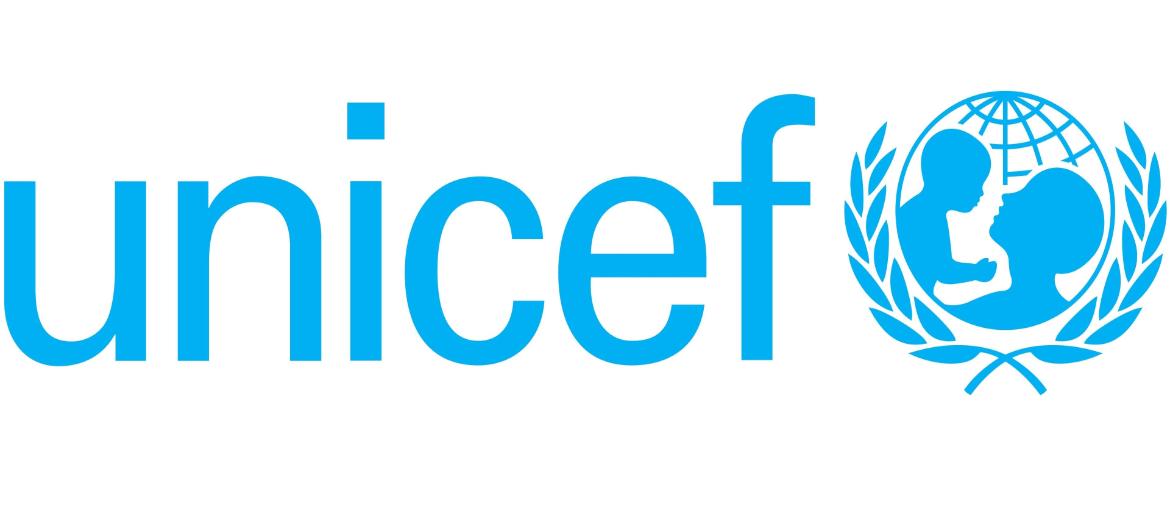
Unicef Font
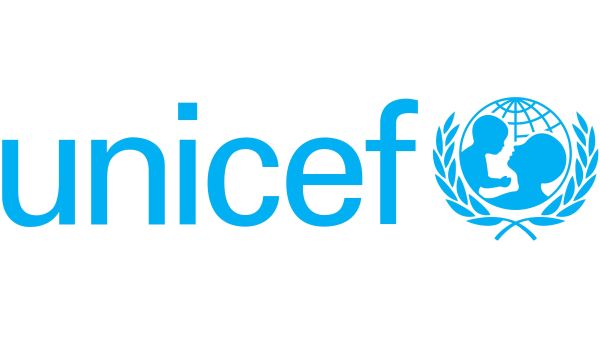
What Font Does Unicef Use?
The UNICEF Font is Univers Pro 45 Light, the typeface used in UNICEF’s logo and visual identity. Designed by Adrian Frutiger, Univers is a clean, modern sans-serif with balanced proportions, smooth curves, and excellent legibility, giving the UNICEF wordmark a calm, trustworthy, and humanitarian feel. The light weight adds a sense of care, openness, and approachability, which aligns perfectly with UNICEF’s mission.
About UNICEF
UNICEF (United Nations Children’s Fund) was established in 1946 and is a United Nations agency dedicated to protecting the rights and well-being of children worldwide. It works in over 190 countries and territories, providing healthcare, education, nutrition, clean water, and emergency aid to children in need.
UNICEF is widely recognized for its humanitarian work and advocacy for children’s rights. Its simple blue logo and clean typography help communicate trust, compassion, and global unity, reinforcing its role as one of the most respected organizations in the world.